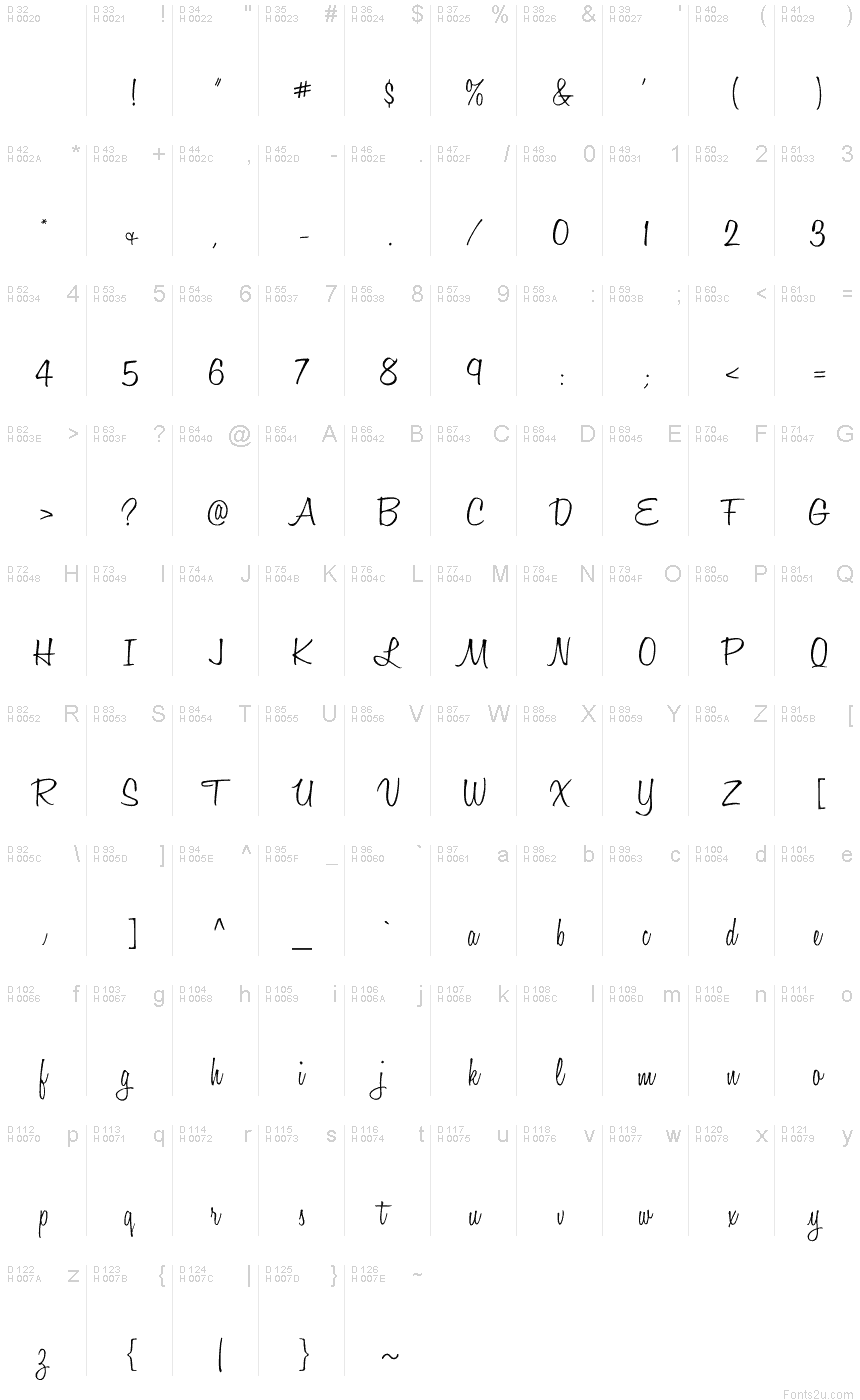
Honey Script Light
Honey Script Light font by Typographer Mediengestaltung is a free handwritten script typeface with an easygoing, ink-on-paper feel. Its tall, airy letters, loose connections, and softly rounded curves read cleanly even at smaller sizes, giving you that breezy “quick note” energy without sacrificing clarity. Strokes look like they were drawn with a smooth brush pen—confident, a bit bouncy, and just irregular enough to feel genuinely personal.
Using Honey Script Light, you can bring warmth and personality to logos, product packaging, greeting cards, social media graphics, invitations, and quote posters. The open letterforms and relaxed rhythm keep longer phrases legible, making this free font a natural fit for headlines and short paragraphs alike. For a balanced layout, pair it with a simple geometric sans serif and let Honey Script Light handle the expressive words at larger sizes.